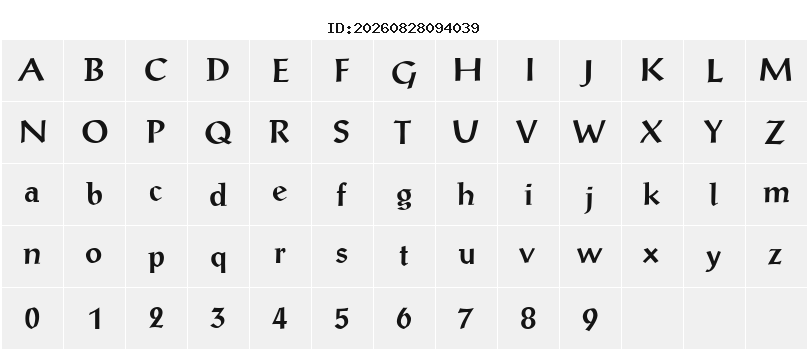
About TrSah Prose Antique.ttf
TrSah Prose Antique.ttf is a modern, elegant sans-serif font designed for ultimate readability and visual harmony. Perfect for branding, headlines, web design, and print materials.